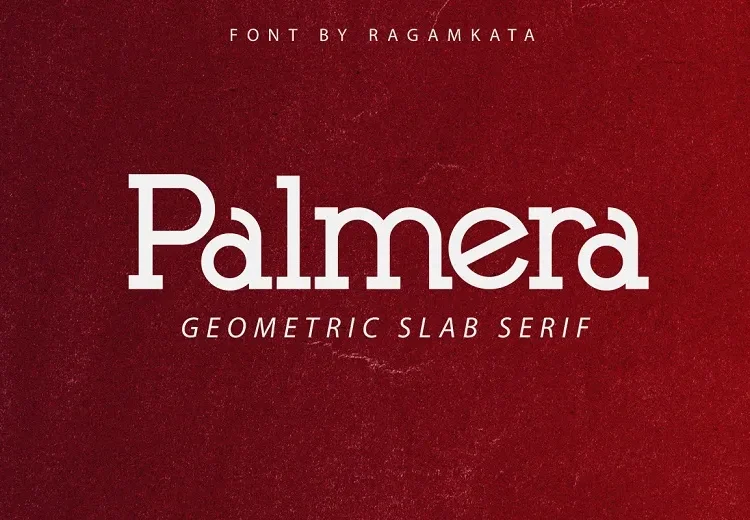
Palmera Font
Palmera is a geometric slab serif font that combines clean lines with elegant design. This typeface is perfect for sparking creativity and inspiring captivating designs. Its versatility makes it ideal for a variety of projects, including logo branding, editorial design, fashion, stationery, sports design, blog design, modern advertising, invitations, badges, art quotes, book covers, and special events.
Palmera’s refined appearance ensures that your work will stand out and leave a lasting impression. Its unique geometric structure provides a modern yet timeless aesthetic, making it suitable for both contemporary and classic design projects.